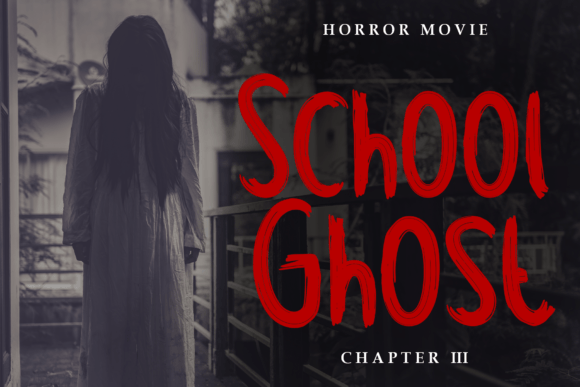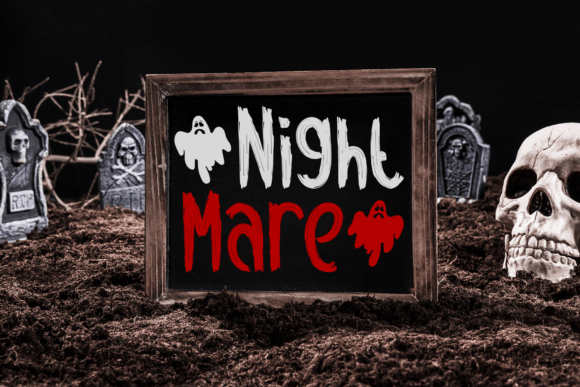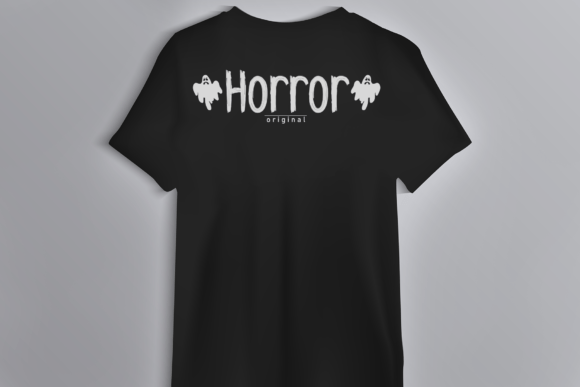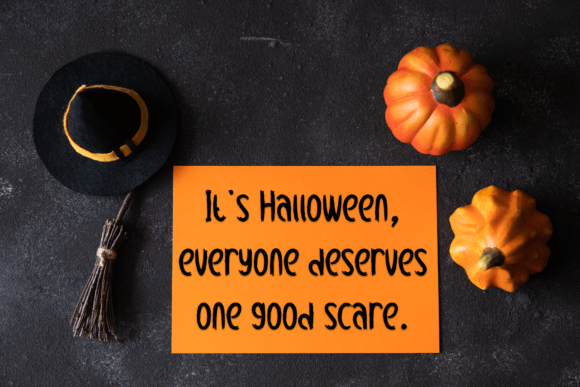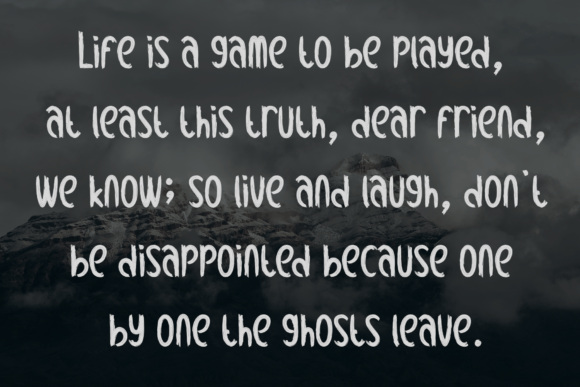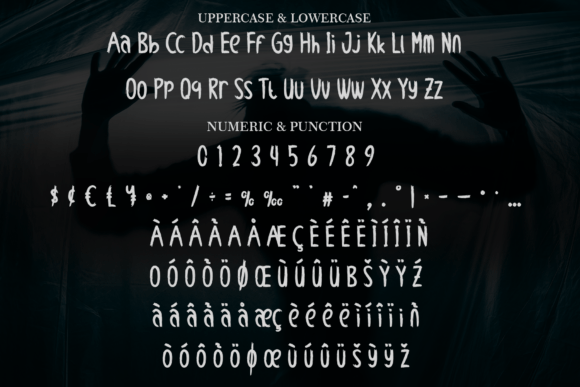
Evilshadow Font: Adding a Fun Touch to Your Designs
Are you looking for a font that can add a playful and vibrant touch to your designs? Look no further than the Evilshadow Font! This bold and vibrant handwritten display font is perfect for creating eye-catching posters, flyers, movie titles, cards, and more. In this article, we’ll take a closer look at the Evilshadow Font, its features, and how you can use it to elevate your designs.
What is Evilshadow Font?
Evilshadow Font is a unique and creative handwritten display font that is designed to add a fun touch to your designs. With its bold and vibrant style, this font is perfect for making a statement and grabbing the attention of your audience. Whether you’re a designer, crafter, or DIY enthusiast, Evilshadow Font is an excellent choice for anyone looking to add some personality to their work.
Key Features of Evilshadow Font
- Bold and Vibrant: Evilshadow Font is a bold and vibrant font that is designed to make a statement. Its unique style is sure to grab the attention of your audience and leave a lasting impression.
- Handwritten: This font has a handwritten feel that gives it a personal and creative touch. It’s perfect for designs that require a more personal and human approach.
- Cute and Fun: Evilshadow Font is a cute and fun font that is perfect for designs that require a playful touch. It’s ideal for creating posters, flyers, and other materials that need to appeal to a younger audience.
- Versatile: This font is incredibly versatile and can be used for a wide range of designs, including posters, flyers, movie titles, cards, and more.
How to Use Evilshadow Font
Evilshadow Font is an incredibly easy-to-use font that can be incorporated into your designs in just a few simple steps. Here are some ideas for using Evilshadow Font:
- Posters: Use Evilshadow Font to create eye-catching posters for events, promotions, or products. Its bold and vibrant style is sure to grab the attention of your audience.
- Flyers: Create fun and engaging flyers with Evilshadow Font. Its cute and playful style is perfect for promoting events, services, or products.
- Movie Titles: Use Evilshadow Font to create bold and eye-catching movie titles. Its unique style is sure to make your movie stand out.
- Cards: Add a personal touch to your cards with Evilshadow Font. Its handwritten feel is perfect for creating greeting cards, invitations, and more.
Tips for Using Evilshadow Font
Here are some tips for getting the most out of Evilshadow Font:
- Use it sparingly: While Evilshadow Font is a bold and vibrant font, it can be overwhelming if used too much. Use it sparingly to create emphasis and add a fun touch to your designs.
- Pair it with other fonts: Evilshadow Font pairs well with other fonts, especially those with a more minimalist style. Experiment with different font combinations to find the perfect look for your design.
- Experiment with colors: Evilshadow Font looks great in a variety of colors. Experiment with different colors to find the perfect look for your design.
Evilshadow Font is a bold and vibrant handwritten display font that is perfect for adding a fun touch to your designs. With its unique style, versatility, and ease of use, it’s an excellent choice for designers, crafters, and DIY enthusiasts. Whether you’re creating posters, flyers, movie titles, cards, or more, Evilshadow Font is sure to make your designs stand out. So why not give it a try and see the difference it can make in your designs?